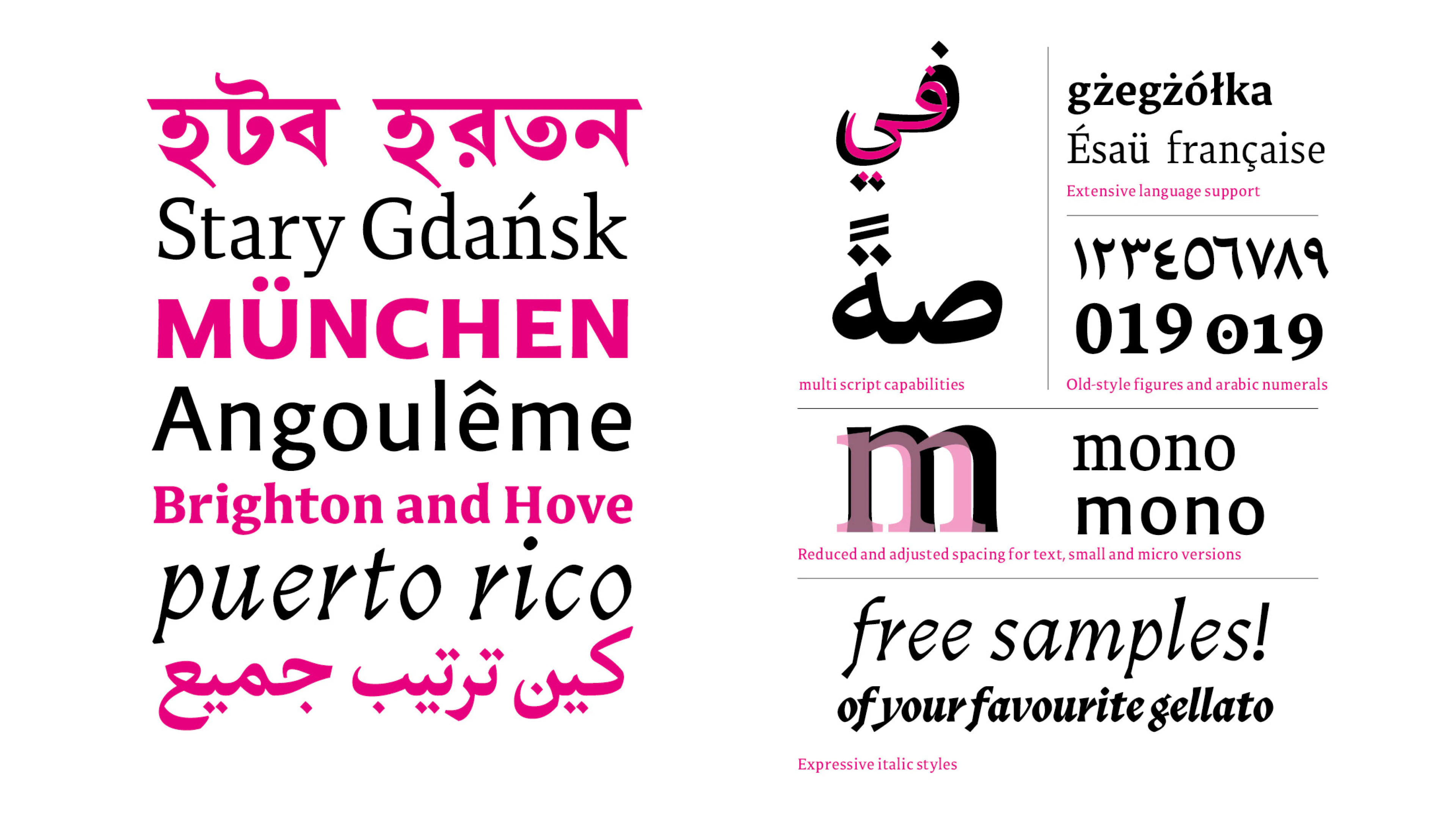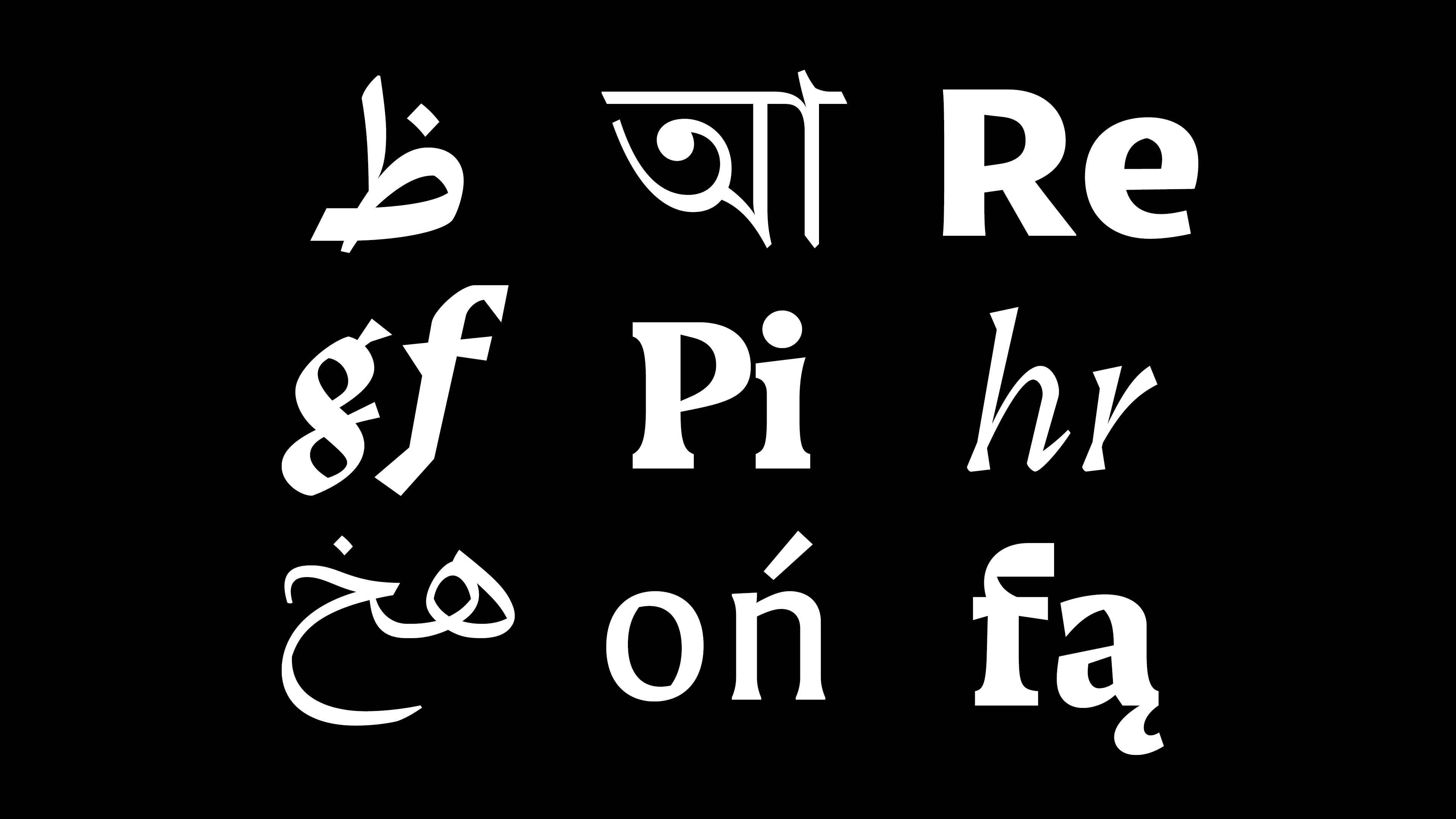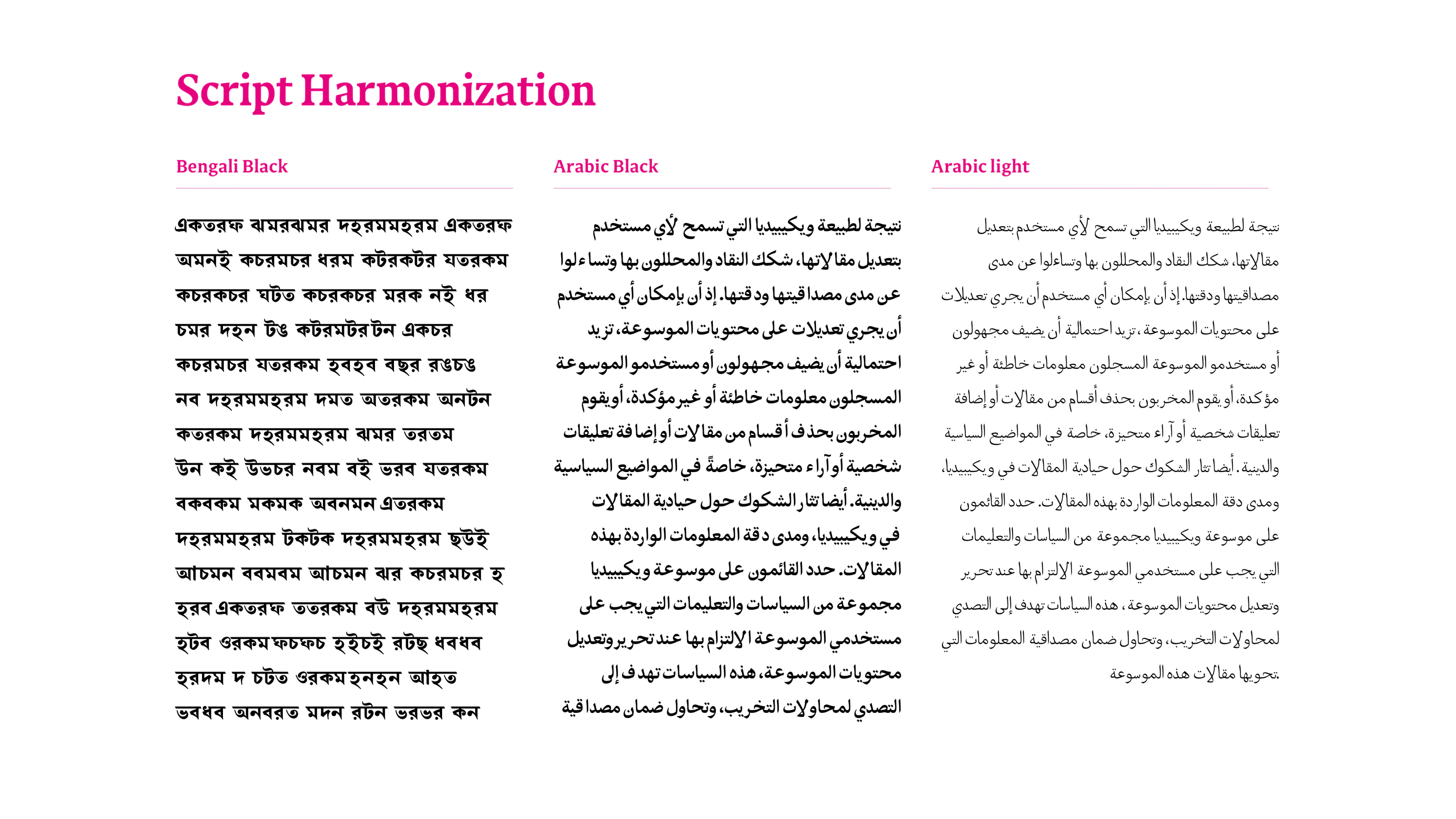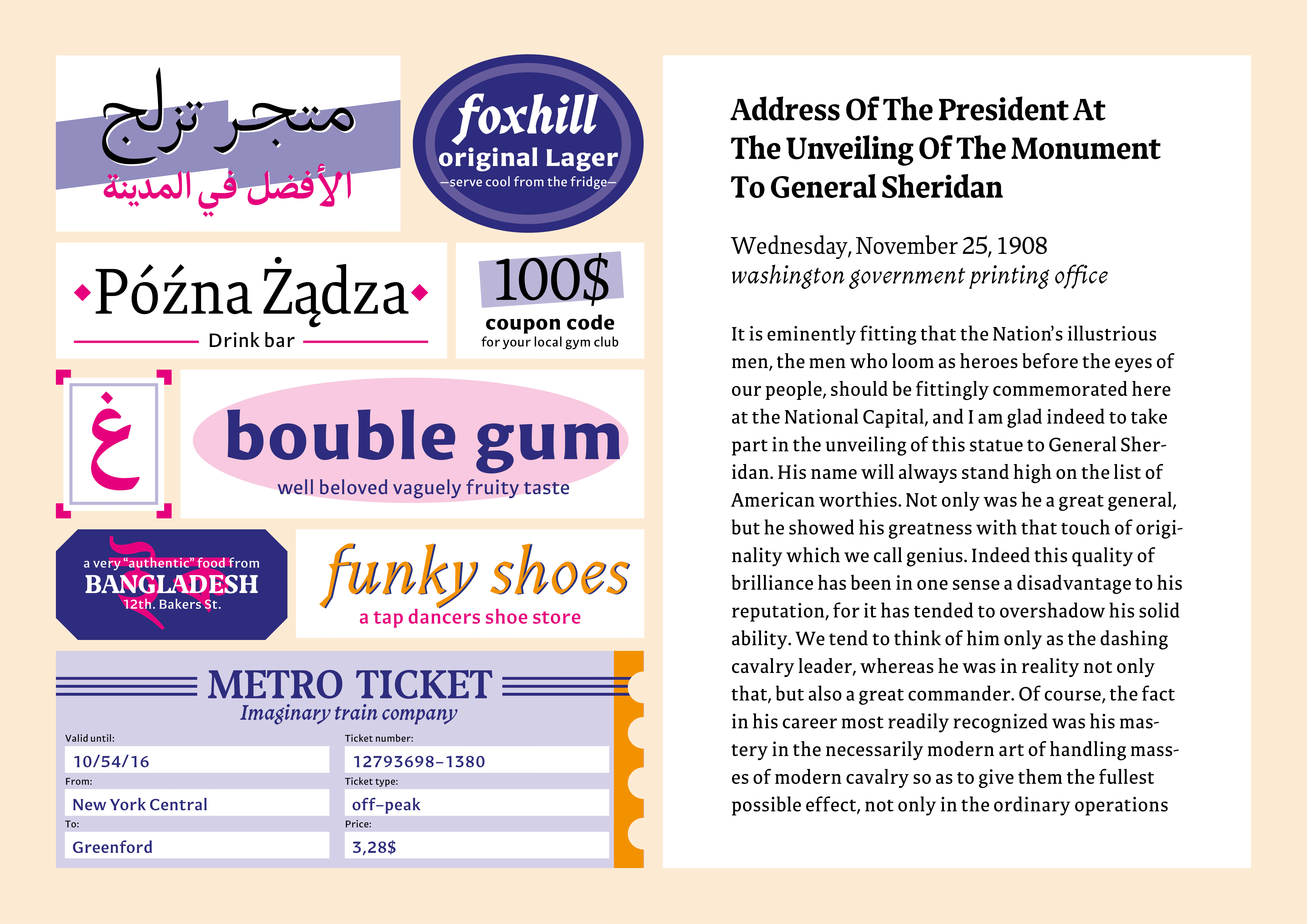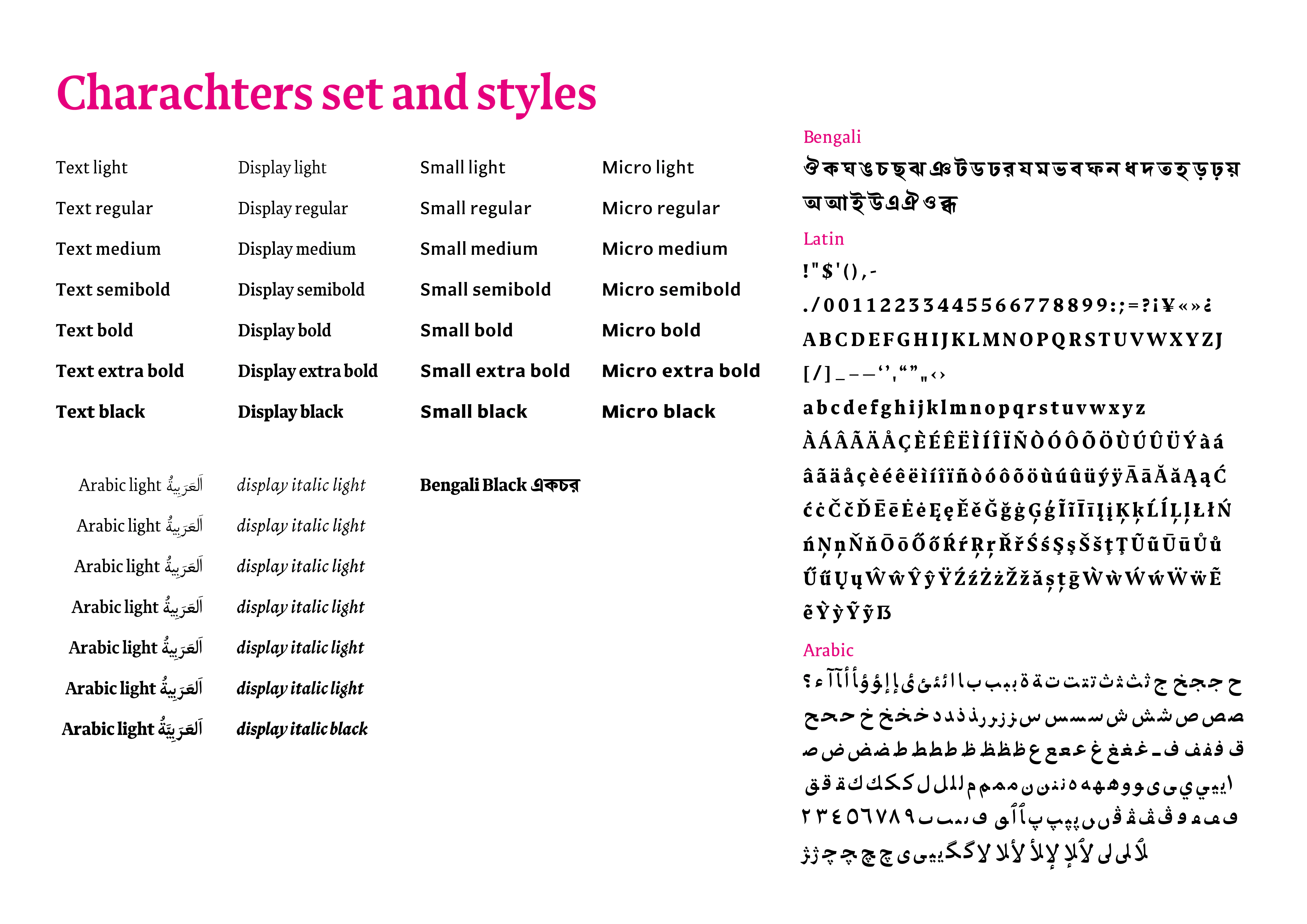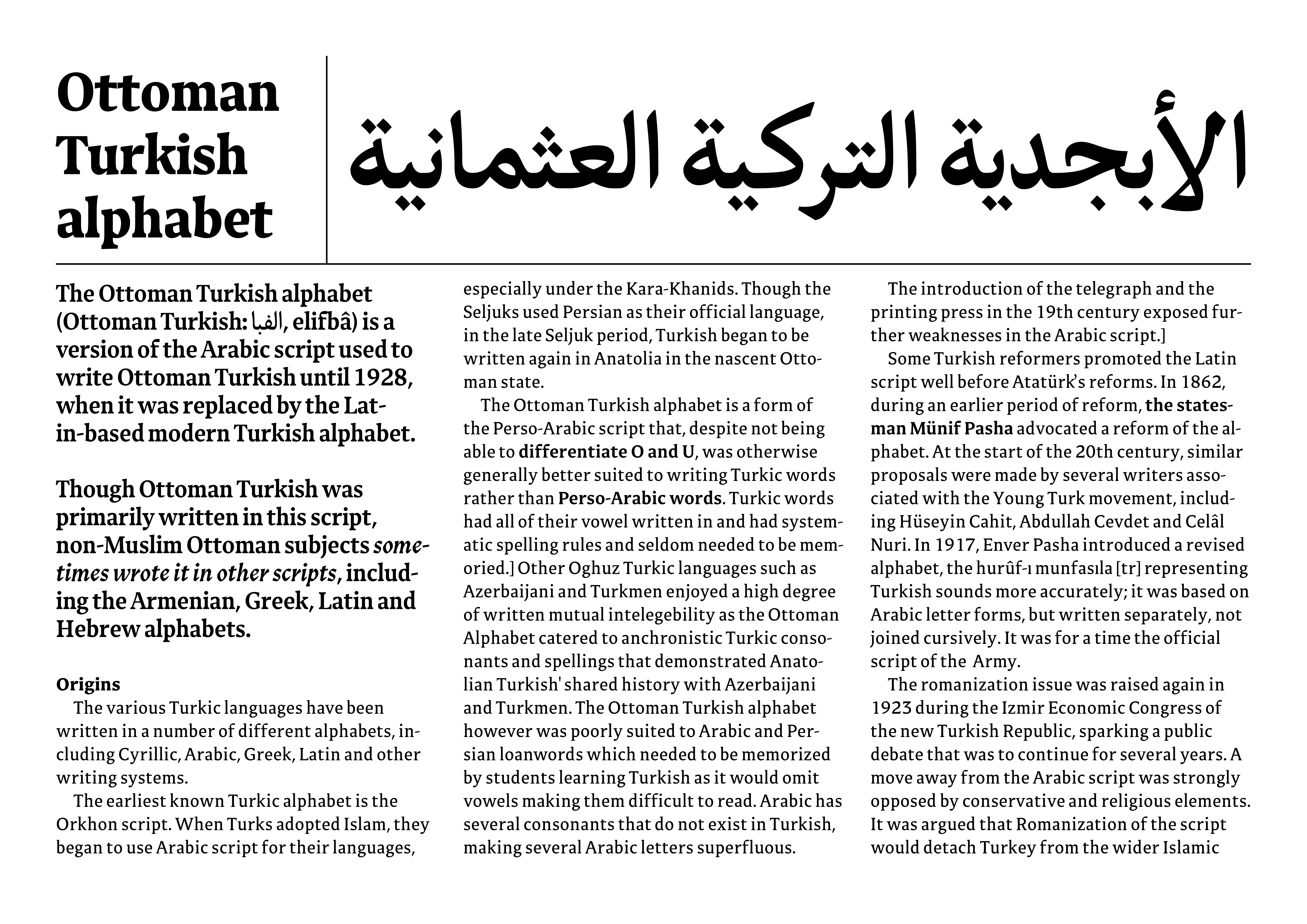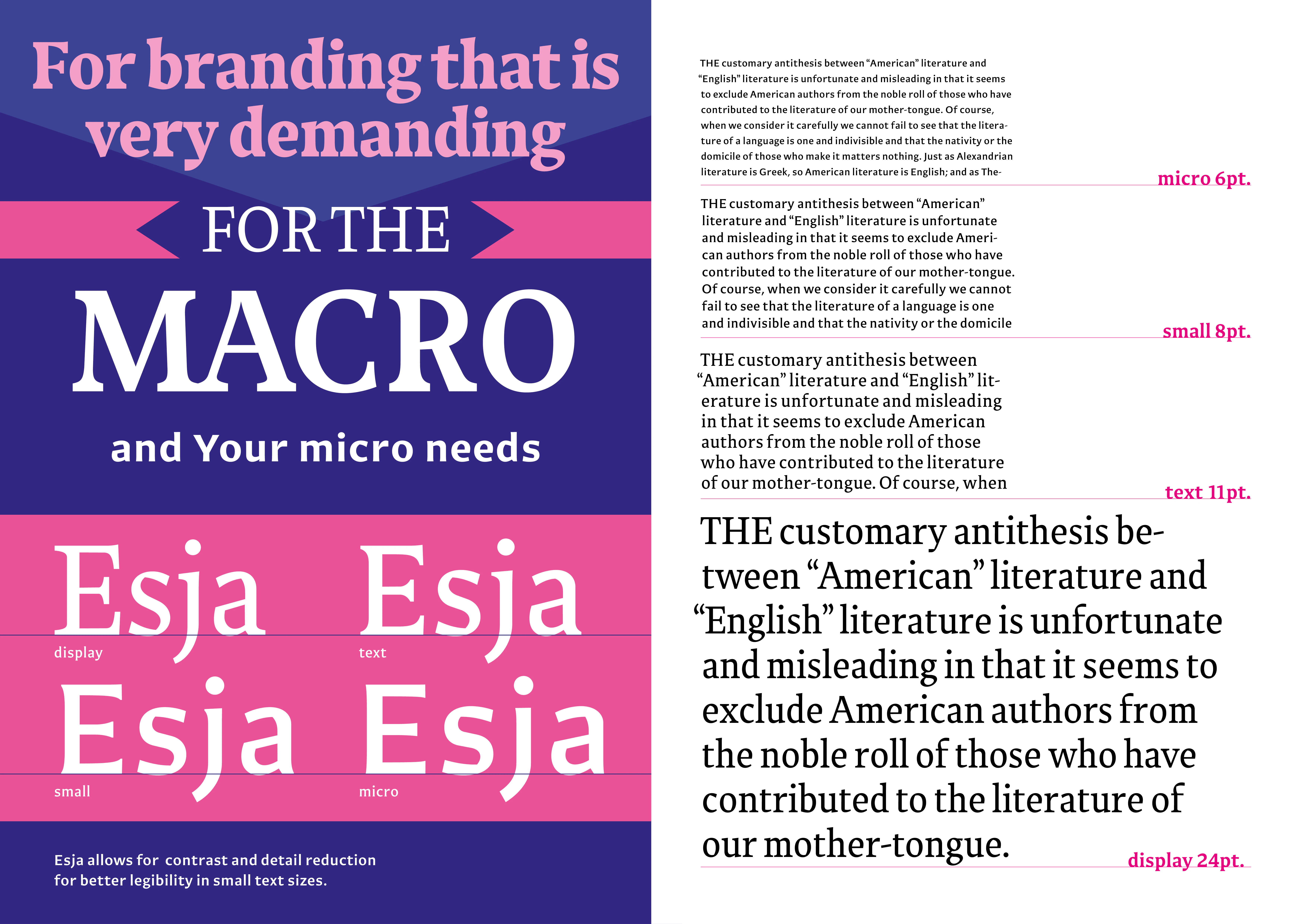
Esja
Esja is a workhorse branding typeface with a strong focus on optical sizes. It’s perfect for tasks requiring consistency in every detail on multiple media and typographic environments. It allows you to stand out with its display weights and to speak clearly in a running text. Pointy counters and curvy stems create forms that shine, especially in Esjas’ informal italic weights. Its expressive catchy personality expands to Arabic and Bengali scripts. This typeface was a final master’s project at the University of Reading.
Esja TDC price
In 2022 Esja Won first prize in the TDC Student competition. It was featured in “TDC 69 The World’s Best Typography” book and exhibition. The exhibition travelled around the world to places such as Japan, Australia, Warsaw, London and New York.
Research on optical sizes
As part of my course at the University of Reading, I wrote a master’s Thesis on “Models of Optical Size Adjustments Across Scripts”. This work informed the decision-making when designing the Small and Micro size of Esja. With Size reduction, Esja loses some of the detail, most notably the serif. It also reduces the contrast and increases the character spacing while keeping some key aesthetic differentiators like sharp counters.